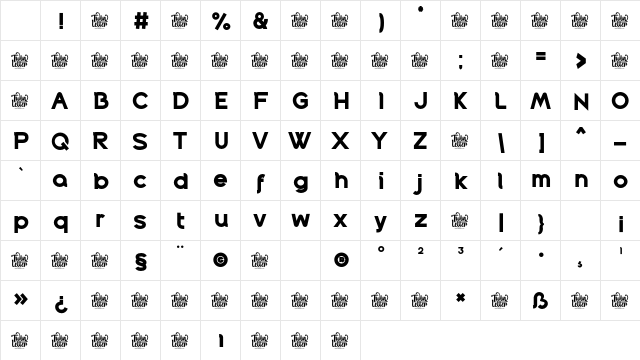
Complete Puntodewa Black Regular glyph index. Displaying only characters natively supported by Puntodewa Black Regular font.
Puntodewa Black is a composed and adaptable typeface that performs quietly and consistently across a wide range of design contexts.